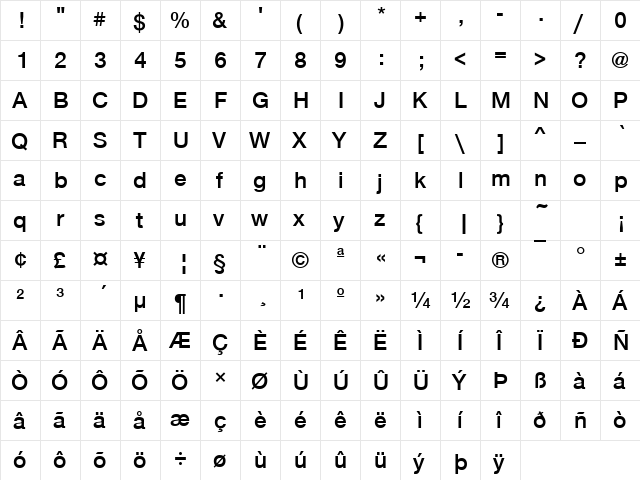
NimbusSanNovTSemBol Regular
Design Context for NimbusSanNovTSemBol Typeface
NimbusSanNovTSemBol takes a measured approach to typography — its balanced proportions and neutral character make it a reliable workhorse for both digital and print work.